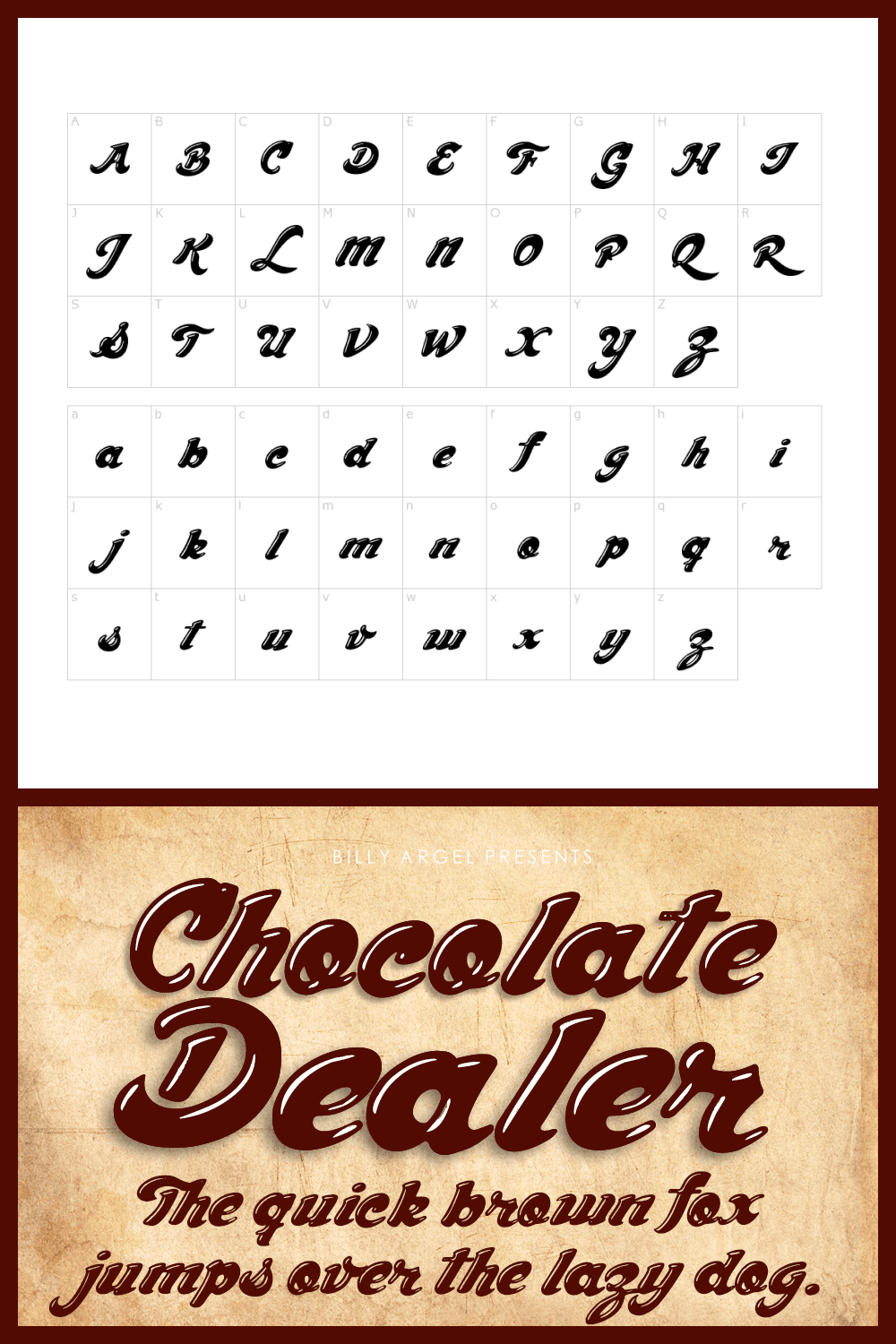
10+ Best Modern Bold Fonts for 2021: Free and Premium Options
Modern Bold Fonts.The use of bold fonts is determined by the necessity to establish priority, make emphasis, and give the right hints to the audience. Being efficient attention grabbers, they are widely used for creating posters, brochures, newspapers, and web layouts. The modern variations of bold fonts go even further. By giving a futuristic vibe to the content, they make your message more powerful and memorable.
Please also consider that using modern bold fonts too much can be as bad as not using them at all. A few, well-placed bold fonts are useful, while a bunch of them can be frustrating and irritating. It’s better to apply a few options using the correct color, size, as well as image to engage your audience at first sight.
Finding the right modern font is not as simple as one may assume. Where should you search for it? How should you choose it? Let’s take a look at some free and premium options that will surely make an impact on your design project.